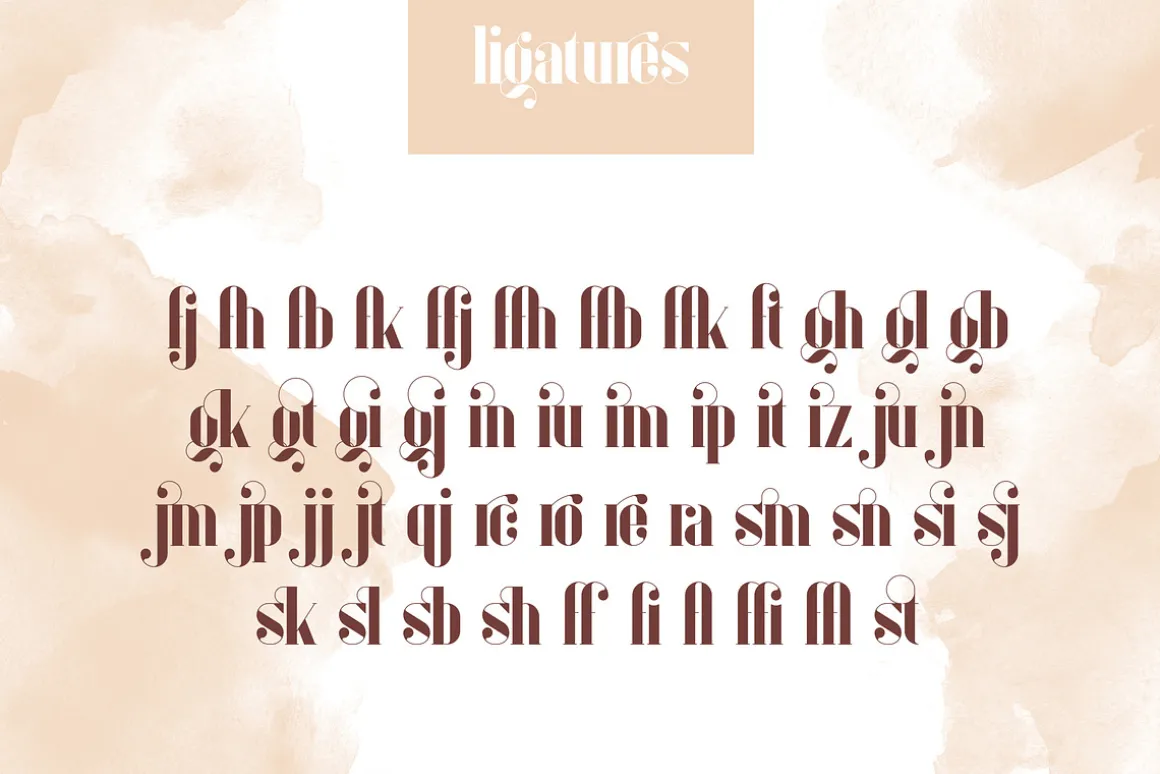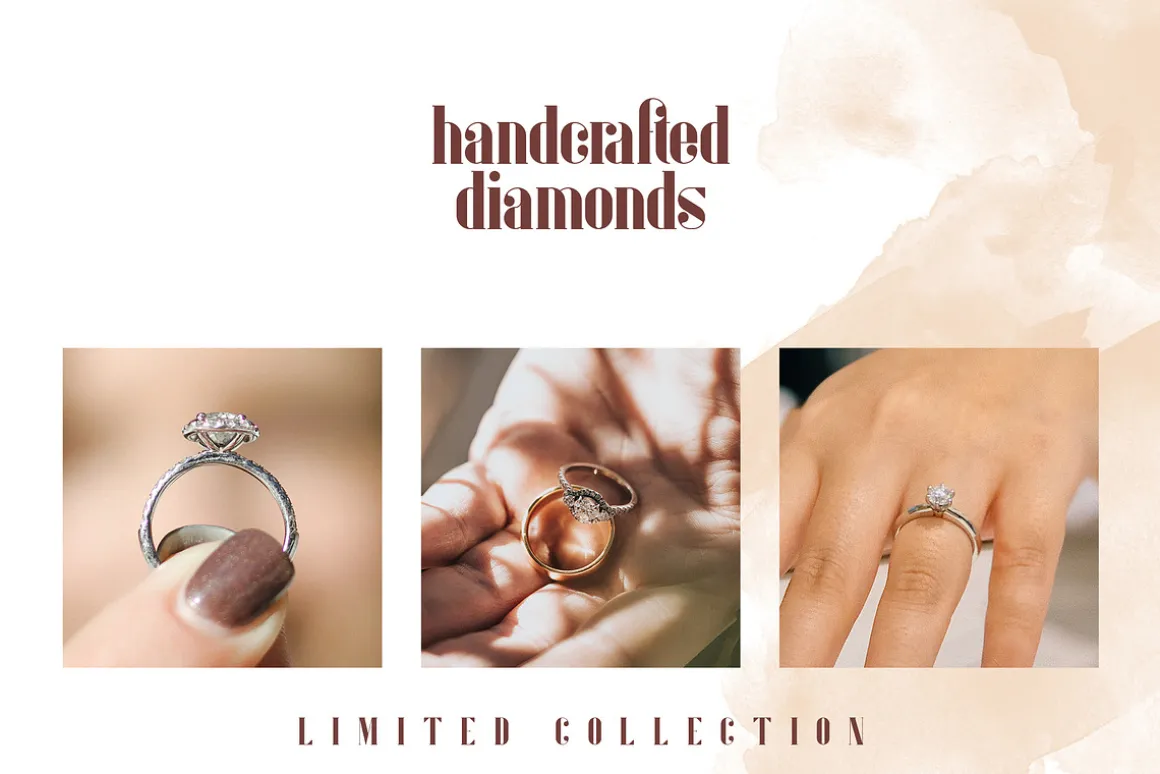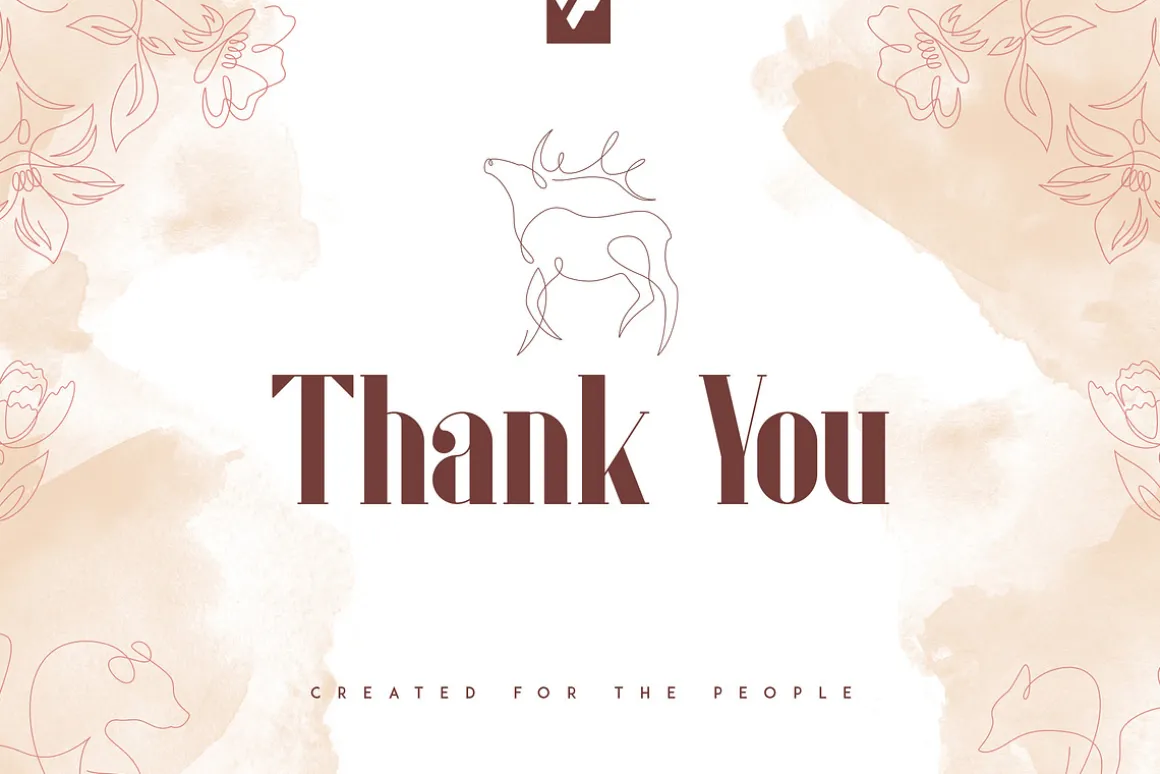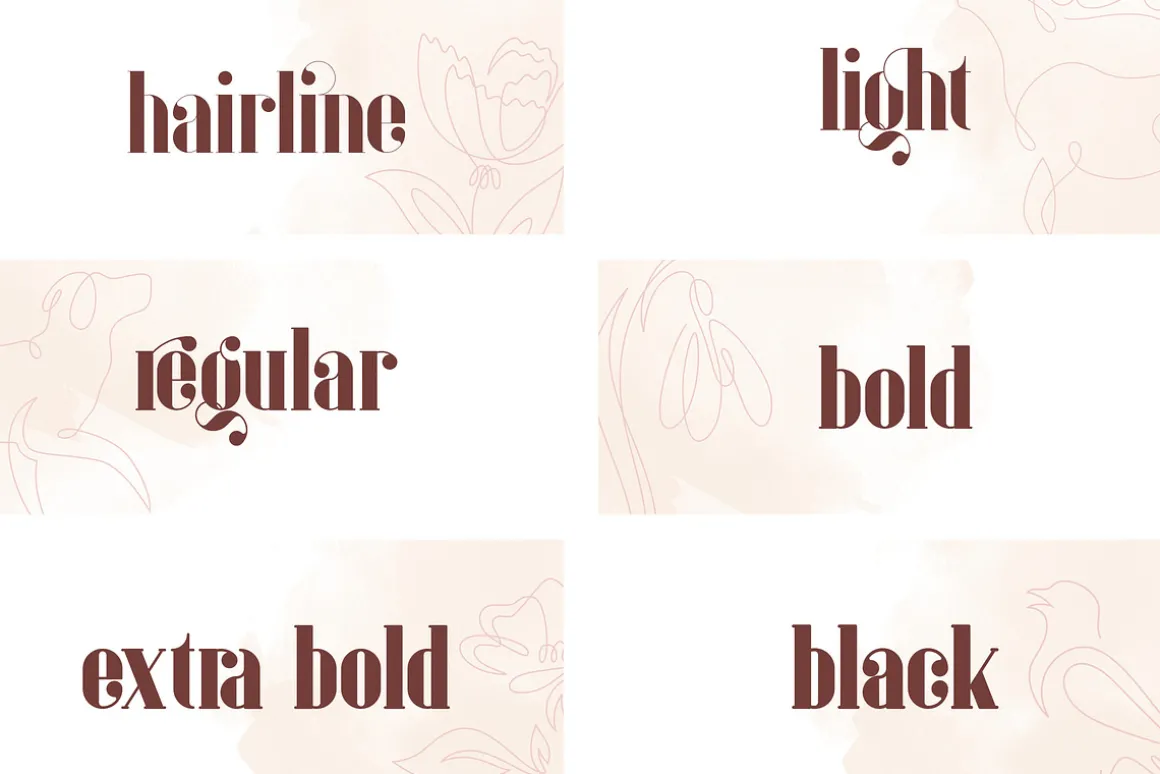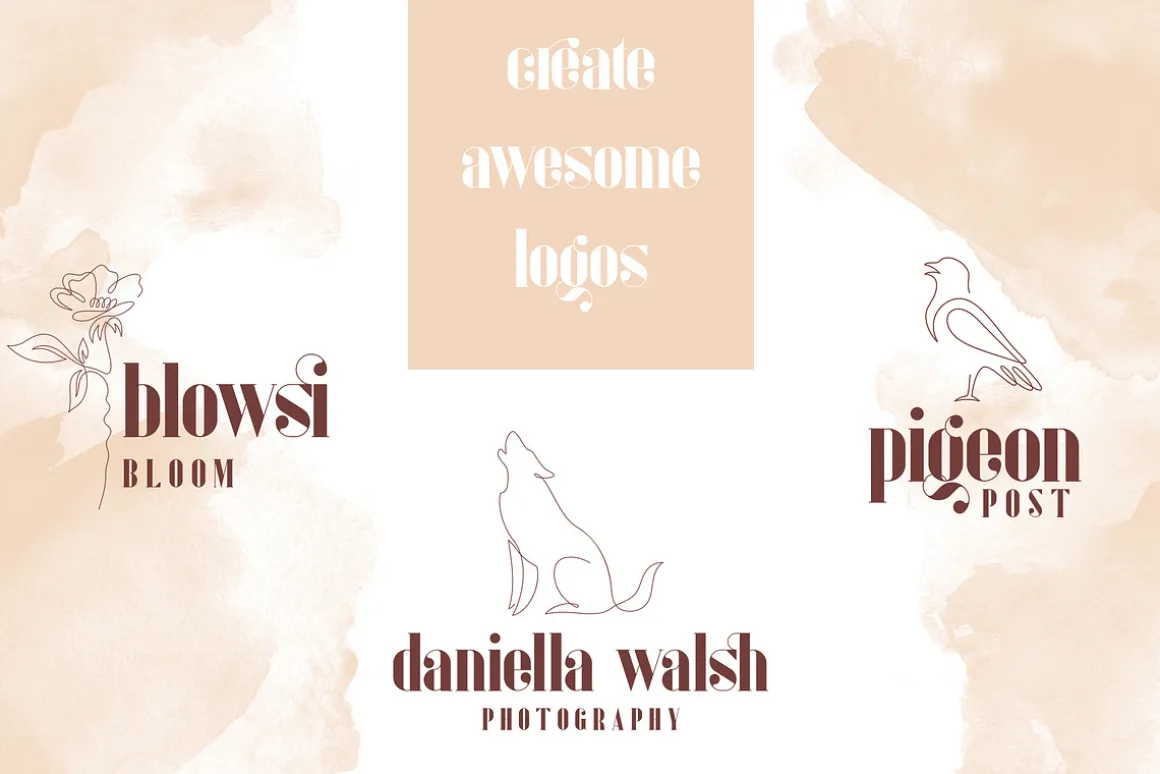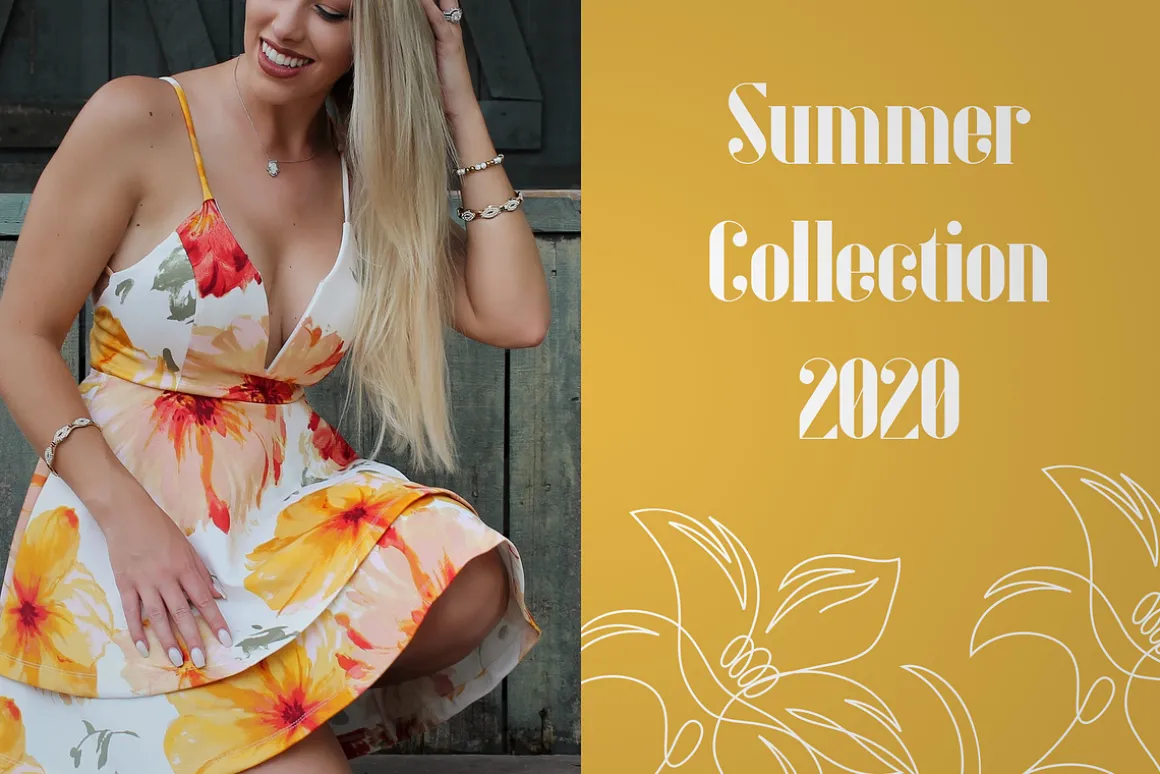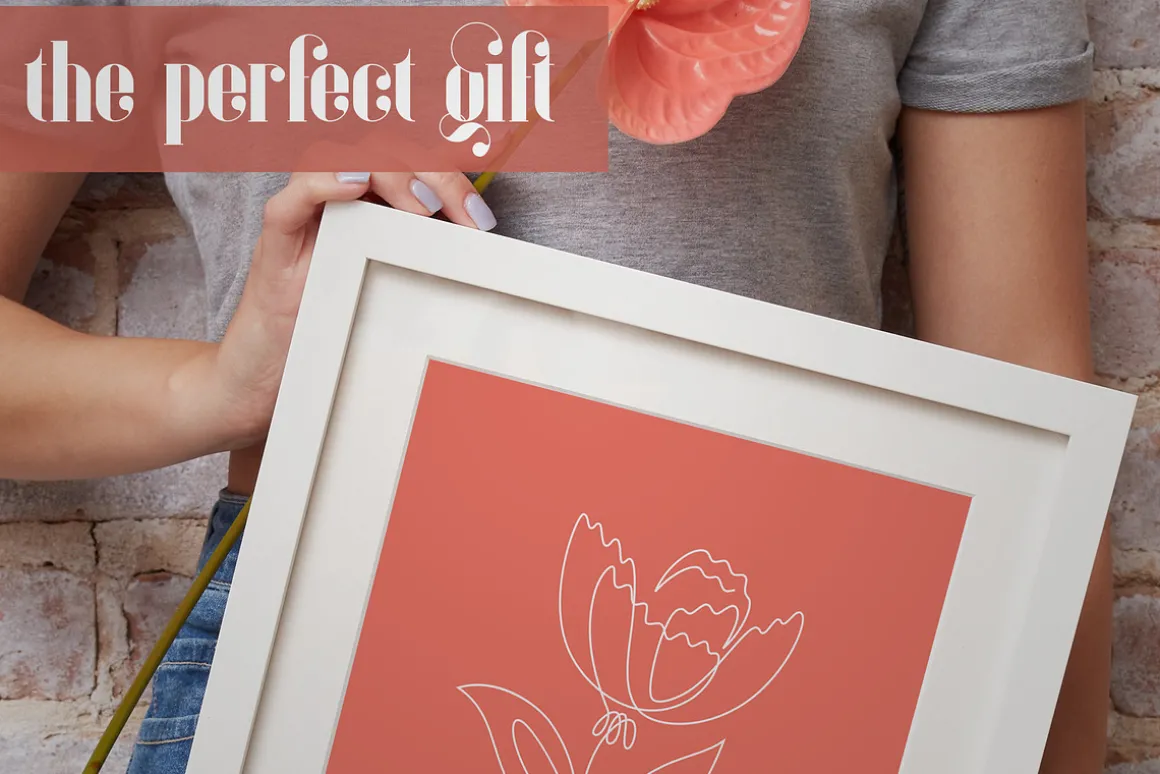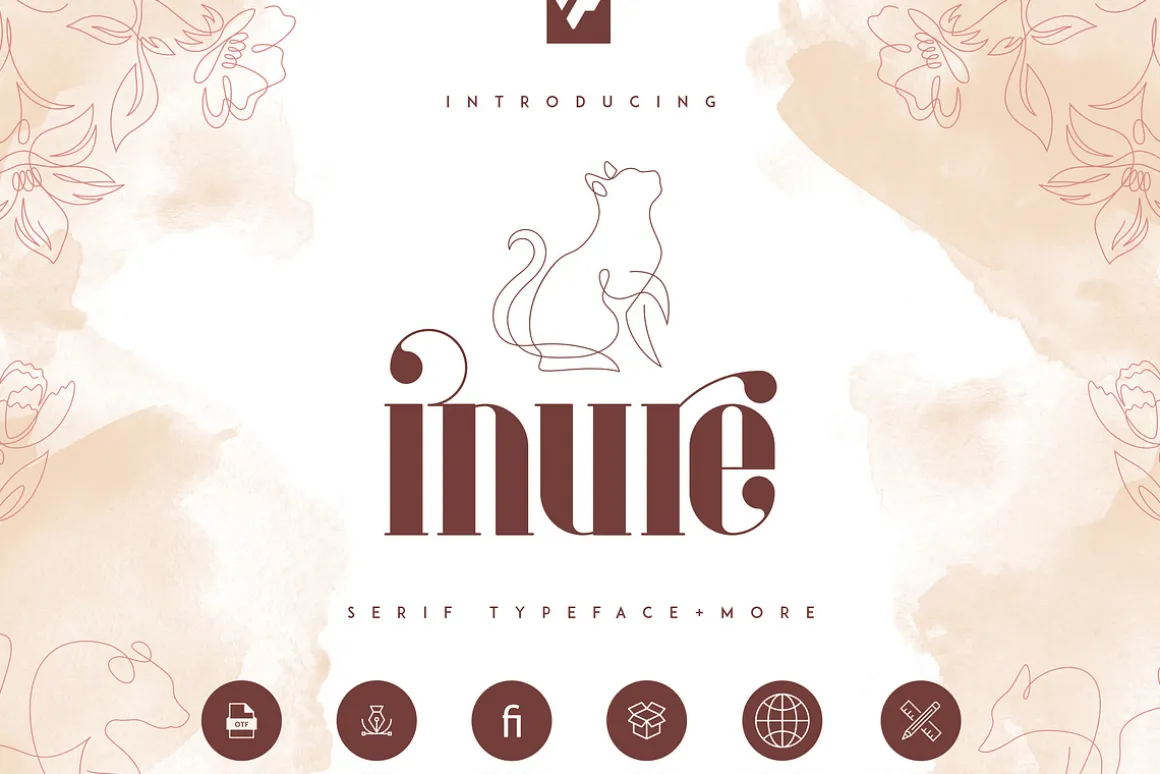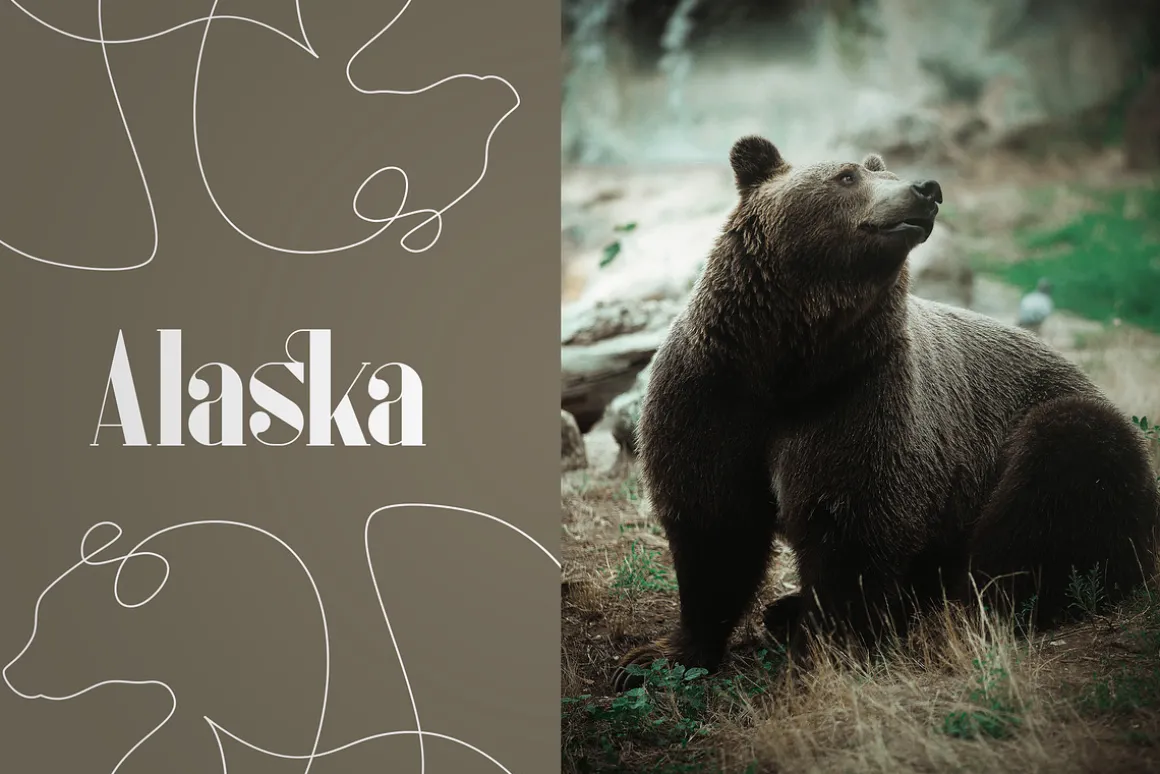
Introducing Inure Typeface – 6 weights and 14 illustrations
Inure is bold, vintage typeface with 6 weights, 14 single line illustrations and multilingual support. It’s a very versatile font that works great in large and small sizes.
Inure is perfect for branding projects, home-ware designs, product packaging, magazine headers – or simply as a stylish text overlay to any background image.
- Uppercase, lowercase, numeral, punctuation & Symbol
- Hairline
- Light
- Regular
- Bold
- Extra Bold
- Black
- Ligatures
- Multilingual support